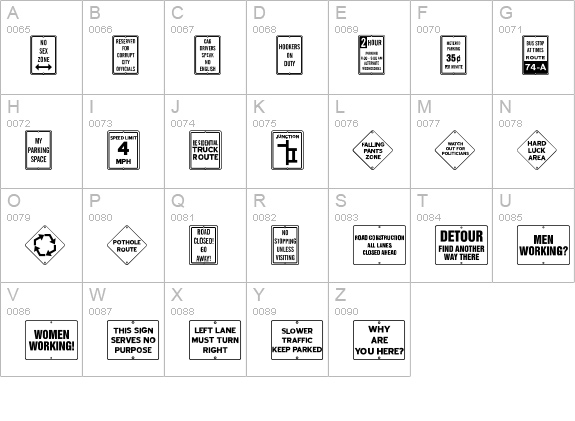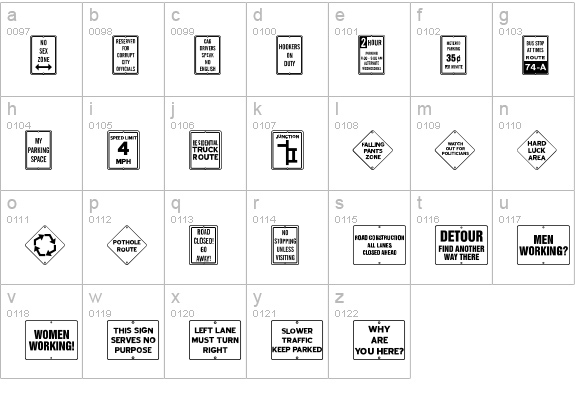
City Signs JL font is a stylish and modern typeface that brings a touch of urban sophistication to your designs. With its clean lines and bold presence, this font is perfect for signage, posters, logos, and more. The unique character of City Signs JL font makes it stand out from the crowd and adds a contemporary edge to any project. Best of all, City Signs JL font is completely free to download and use for both personal and commercial projects. You can easily access this font at FontsMarket.com and start incorporating its sleek aesthetic into your creative work today. With City Signs JL font, you can effortlessly elevate your designs with a touch of modernity and flair.